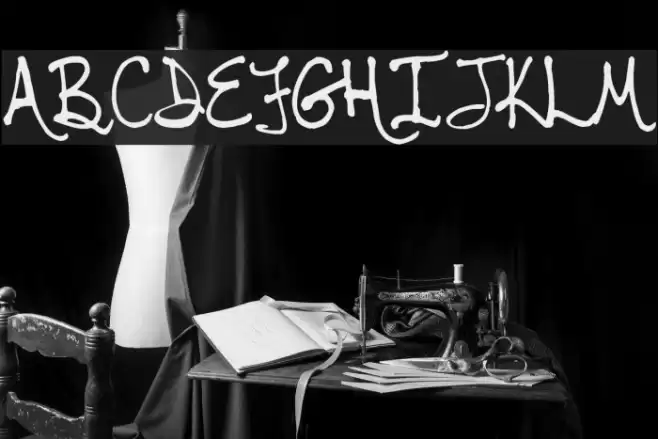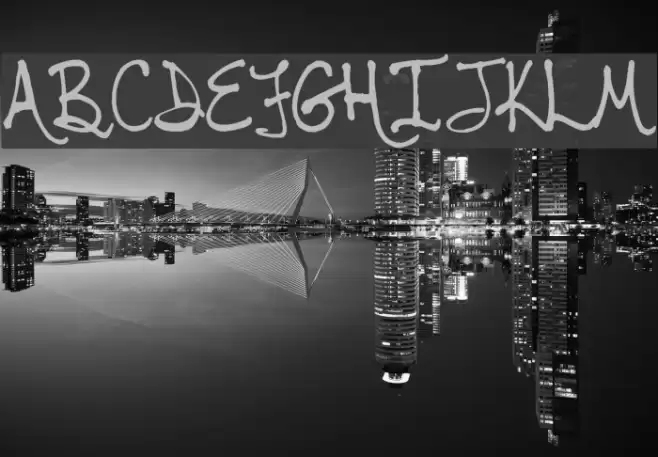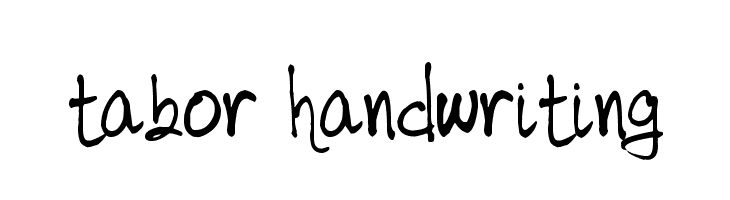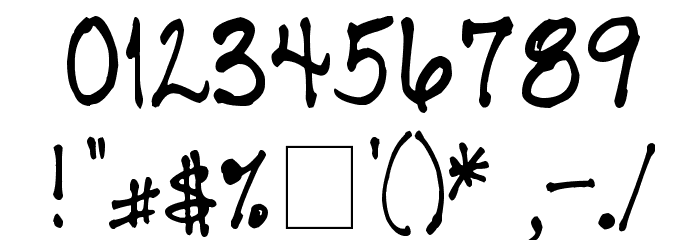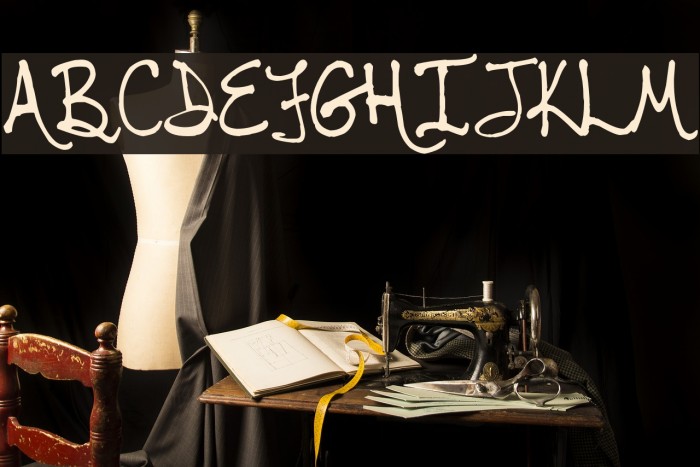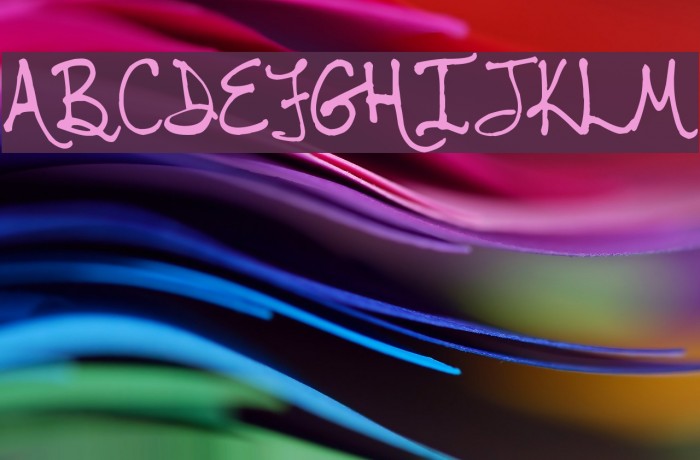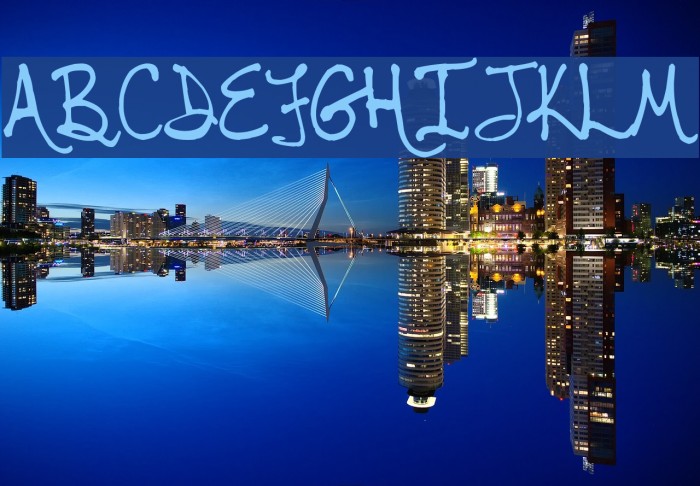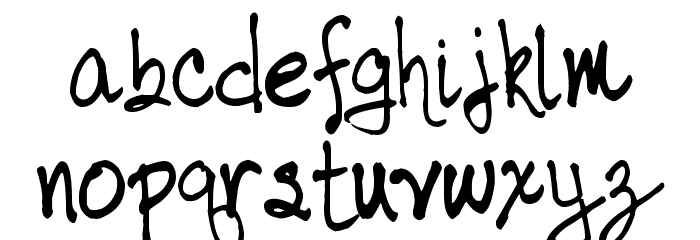
tabor handwriting Font
tabor handwriting Description
This font exudes a playful and casual handwritten style, characterized by its irregular and dynamic strokes. The letters have a whimsical and organic feel, with varying thicknesses that add to its charm. The uppercase and lowercase letters are distinct, with the uppercase being slightly more structured while still maintaining a freeform appearance. The numbers and special characters follow the same lively and informal style, making the font versatile for creative projects. Its unique personality makes it stand out, perfect for designs that require a personal touch.
A playful and casual handwritten font with dynamic strokes from Handwritten fonts.
- Proposed Projects: Ideal for greeting cards, invitations, personal branding, and creative posters.
- Overall Style: Casual, Playful
- Use Case: Logos, Headlines, Creative projects